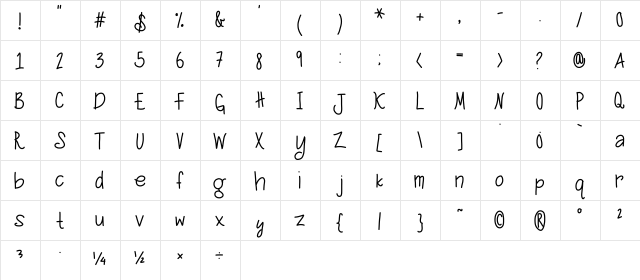
Jessica and Alex Medium Font Preview
Jessica and Alex Medium
Design Context for Jessica and Alex Typeface
Jessica and Alex offers clean, dependable letterforms without strong stylistic allegiance, making it a practical choice for designers who need flexibility.